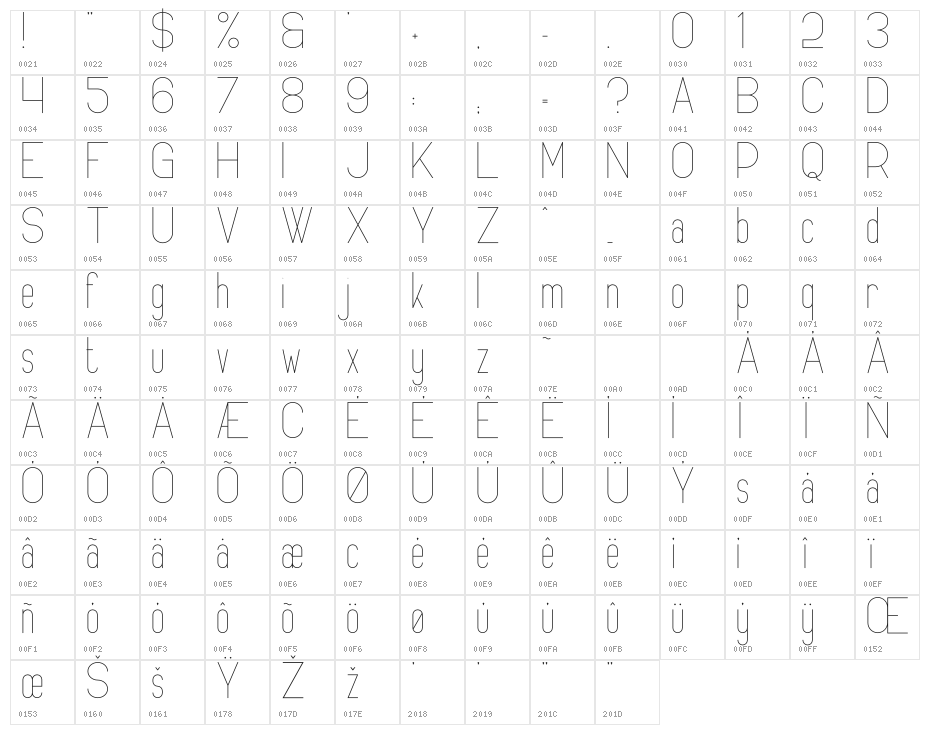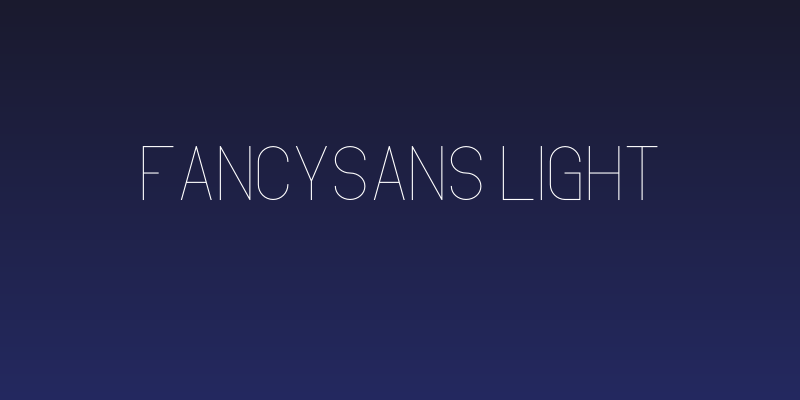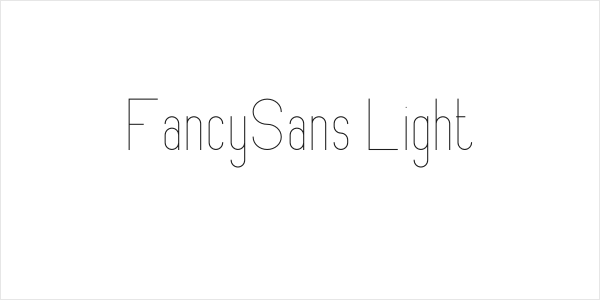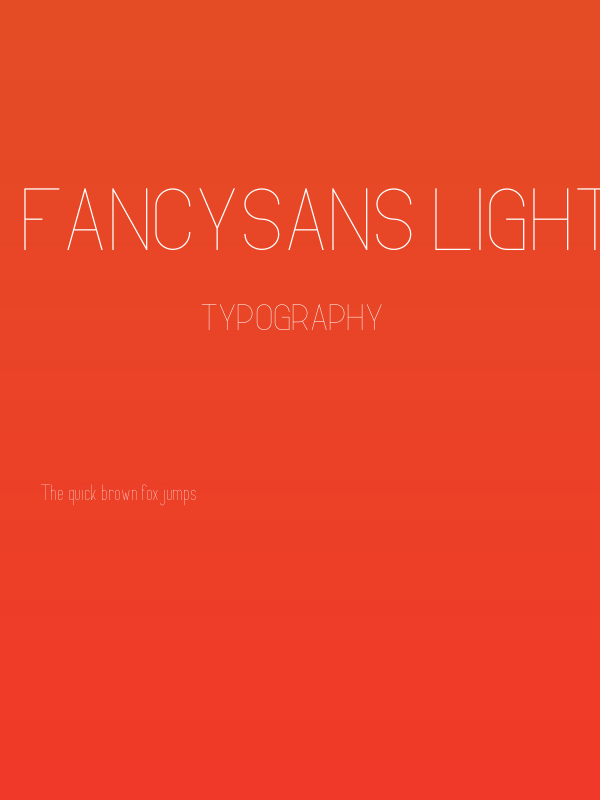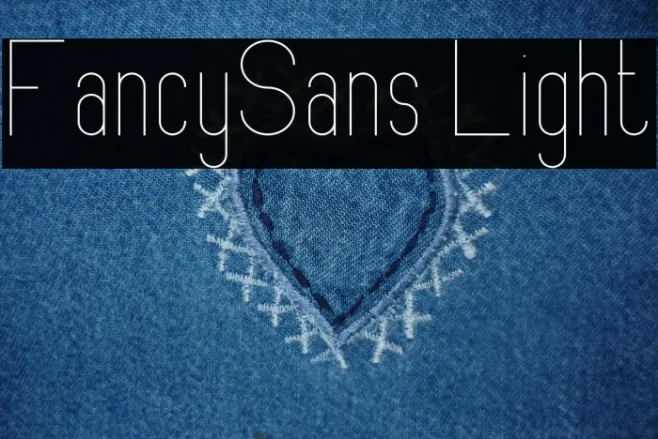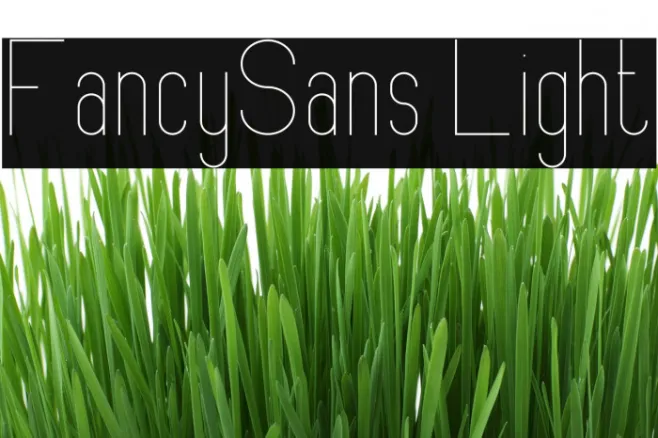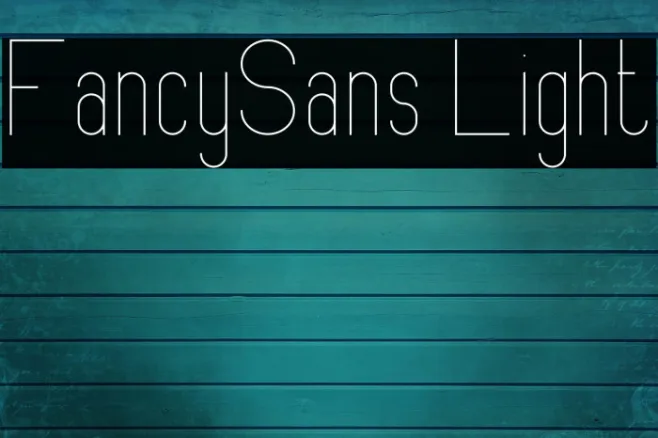
FancySans Light Font
FancySans Light Description
This font exhibits a sleek and modern sans-serif style with a light weight, characterized by its clean lines and geometric shapes. The uppercase and lowercase letters maintain a consistent height, contributing to a uniform appearance. The numerals are clear and easily distinguishable, while the special characters are designed with a minimalist approach. The overall design is airy and open, making it suitable for contemporary projects that require a touch of elegance and simplicity. The thin strokes and lack of serifs give it a refined and sophisticated look, ideal for digital and print media.
| Proposed Projects | Ideal for branding, editorial design, websites, and minimalist posters. |